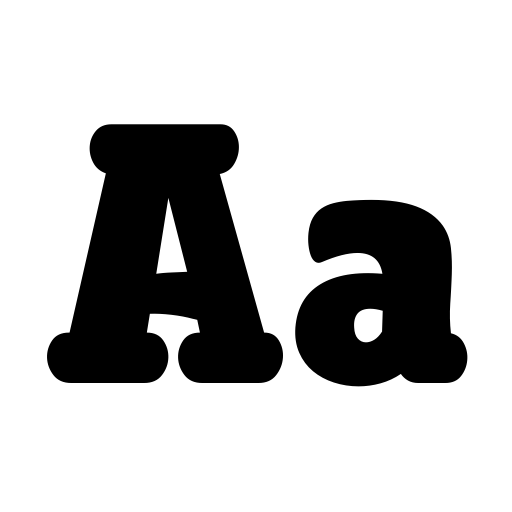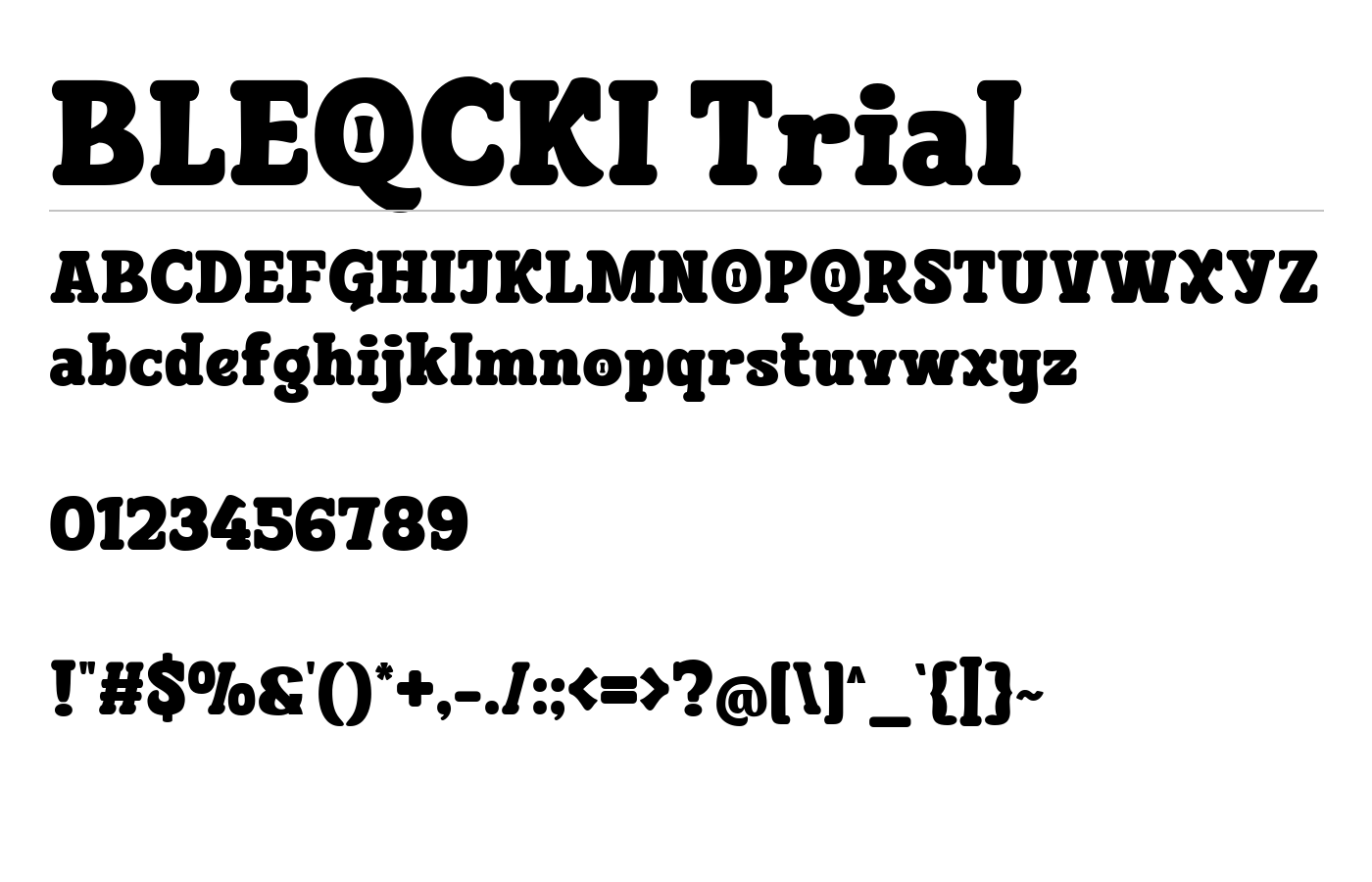
BLEQCKI Trial is a bold, slab serif typeface with a playful and sturdy character, featuring heavy weight and prominent, rounded serifs that give it a strong, confident presence. Its unique letterforms, like the stylized Q tail and distinct ampersand, add personality and charm, making it ideal for eye-catching headlines, logos, and packaging where a fun yet solid impact is desired. This font’s clear, robust design blends vintage charm with a contemporary edge, perfect for brands seeking a memorable and approachable look.
BLEQCKI Trial Font
About BLEQCKI Trial Font